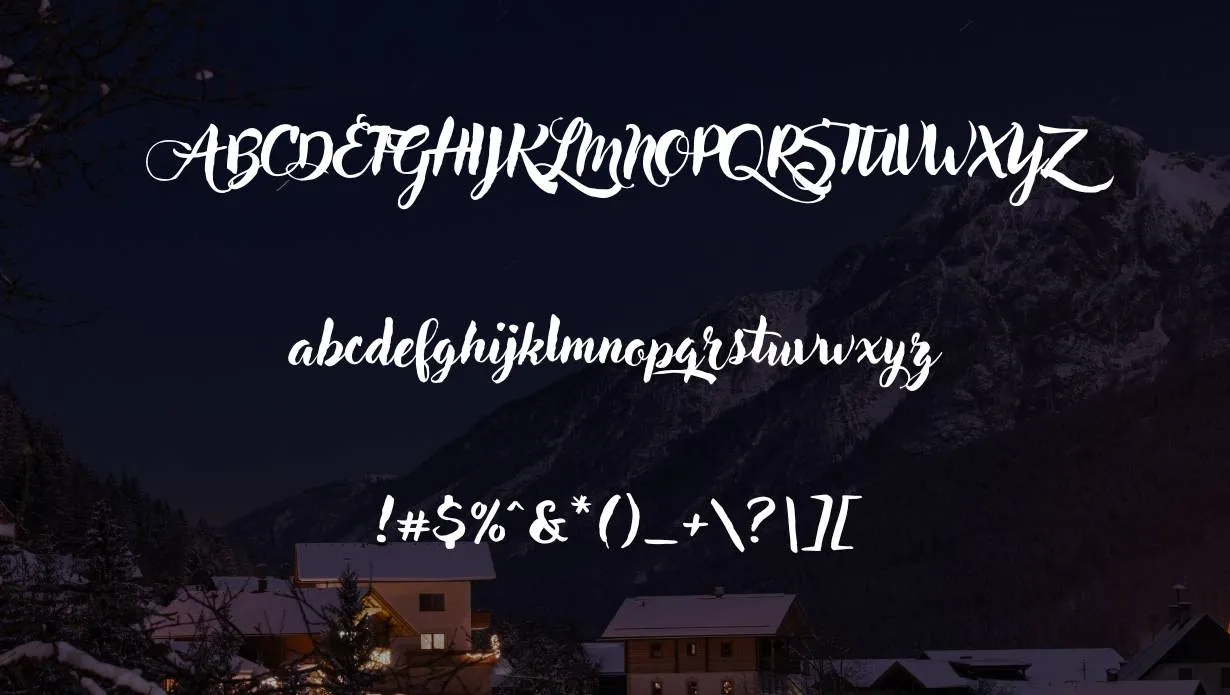
Adlery font is like a friendly companion, perfect for personal messages or casual invitations. Your words will feel warm and approachable, like a comforting embrace from a friend. The font’s weight is soft and inviting, and its comfortably casual width adds to the relaxed and friendly atmosphere.
Use Adlery to create a connection with your audience, making your words feel like a genuine and heartfelt conversation.
| Name | Adlery Font |
| Designer | Zetafonts |